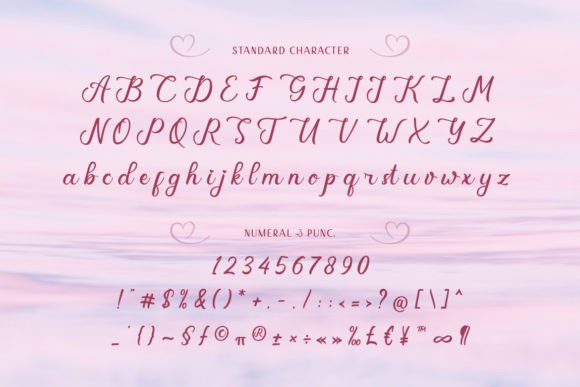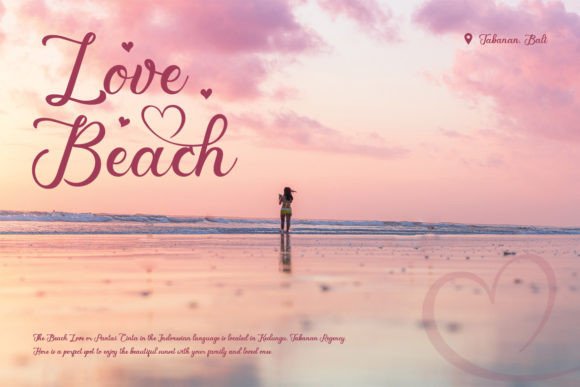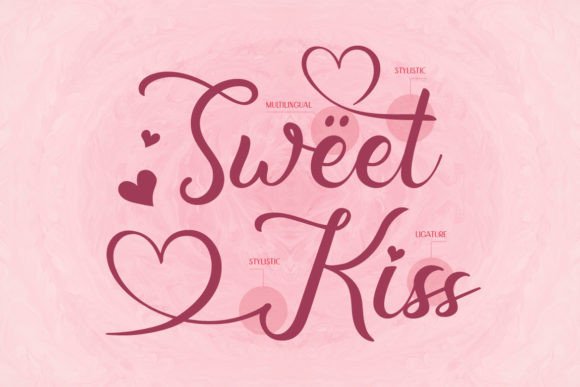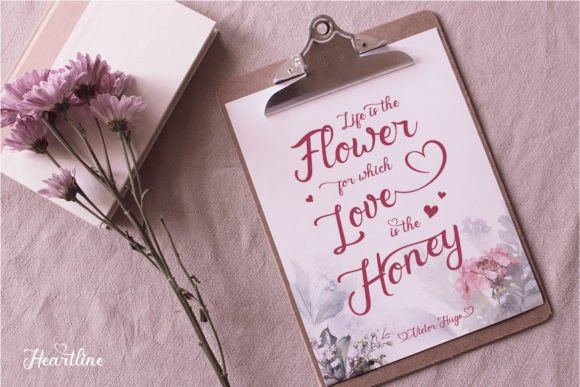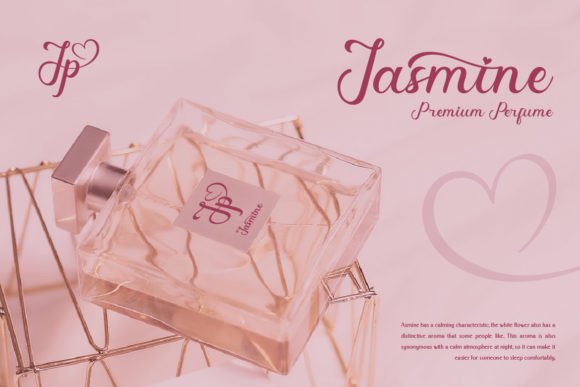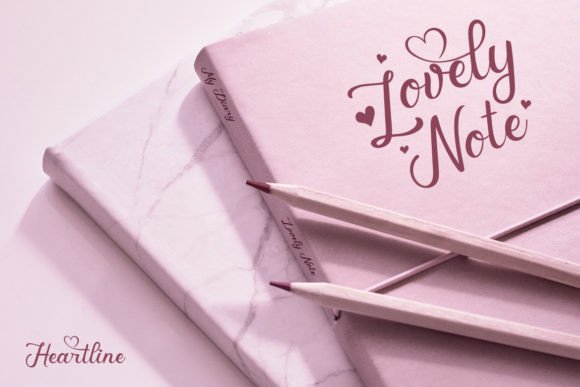
Introduction to Heartline Font
Have you ever stared at a blank canvas, waiting for inspiration to strike? That’s exactly where I was when I stumbled upon the Heartline Font – a game-changing script font that brought my creative project to life. Its elegant touch added a level of sophistication that elevated my design from ordinary to extraordinary.
Key Features of Heartline Font
- High-quality design resource perfect for creative projects, offering a professional and elegant look.
- Designed with a clean and modern aesthetic, ideal for use in digital and print projects.
Honest Review: Heartline Font
As a designer, I’m always on the lookout for high-quality design resources to elevate my creative projects. Recently, I had the chance to try out the Heartline Font, and I’m excited to share my honest review.
What works well: ✨ The Heartline Font is incredibly versatile, with a range of styles that can be used for both digital and print projects. The font is highly customizable, allowing me to easily adjust the spacing, color, and other attributes to fit my design needs. The transparent background option is also a great feature, making it easy to use the font on top of images or other design elements.
- Customizable and versatile
Any limitations: ⚠️ While the Heartline Font is overall a great resource, I did find that it can be a bit tricky to use in certain situations. For example, the font can become pixelated if used at too small a size, which can be a problem for designers who need to use the font in a small format.
The Heartline Font is a versatile font that can be used for various purposes, such as:
- Creating eye-catching headings and titles
- Designing logos and brand identities
- Adding a touch of elegance to presentations and documents
To get the most out of the Heartline Font, use it in combination with other high-quality design elements, such as images and graphics. Experiment with different font sizes and styles to create a unique and visually appealing design.
What are the technical specifications of the Heartline Font?
The Heartline Font is available in a range of weights and styles, including Light, Regular, Bold, and Italic. The font is designed to be highly legible and versatile, making it suitable for a wide range of creative projects. The technical specifications of the font include a font size range of 8-72 points, with a line height of 1.2-1.5 times the font size.